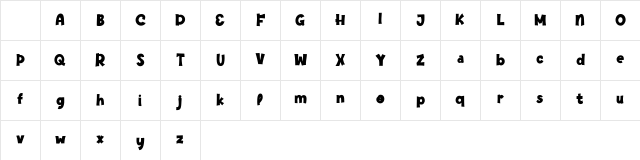
March Loft Free Font is a composed and adaptable typeface that performs quietly and consistently across a wide range of design contexts.
Pro Tip: Use March Loft Free Font in both headline and body roles to test its range before committing to a single application.